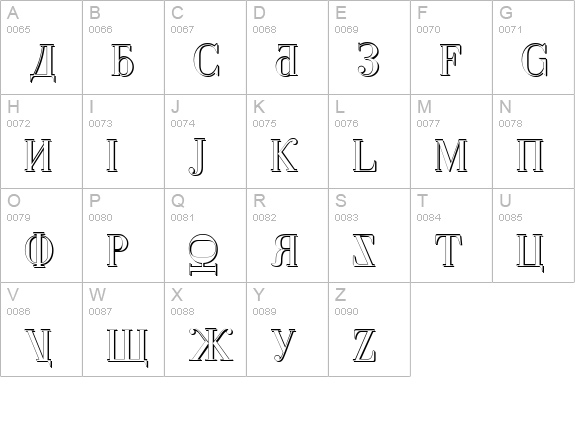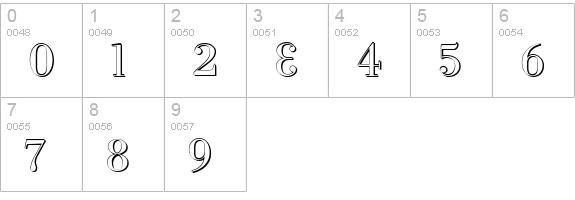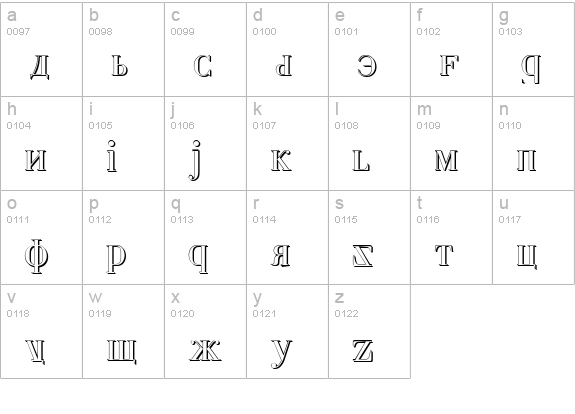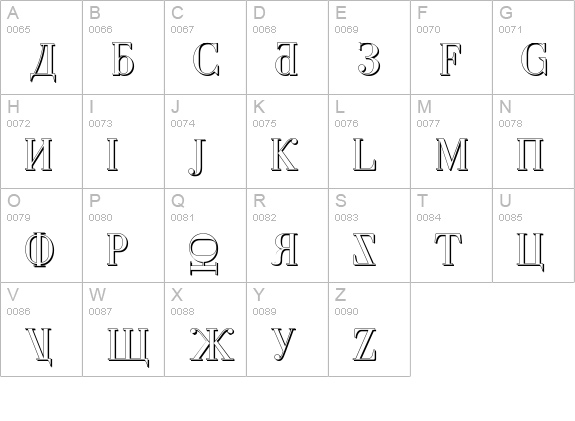
Cyberia Shadow font is a modern and sleek typeface that exudes a sense of futuristic sophistication. Its sharp lines and geometric design make it perfect for projects that require a contemporary touch. The Cyberia Shadow font features a unique shadow effect that adds depth and dimension to your text, making it stand out on any design. Best of all, Cyberia Shadow font is completely free to download at FontsMarket.com. This means you can easily access this stylish font without any cost, making it a valuable addition to your font collection. Whether you're working on a website, poster, logo, or any other creative project, Cyberia Shadow font is sure to elevate your design with its cutting-edge aesthetic. Download now and add a touch of modern flair to your work!